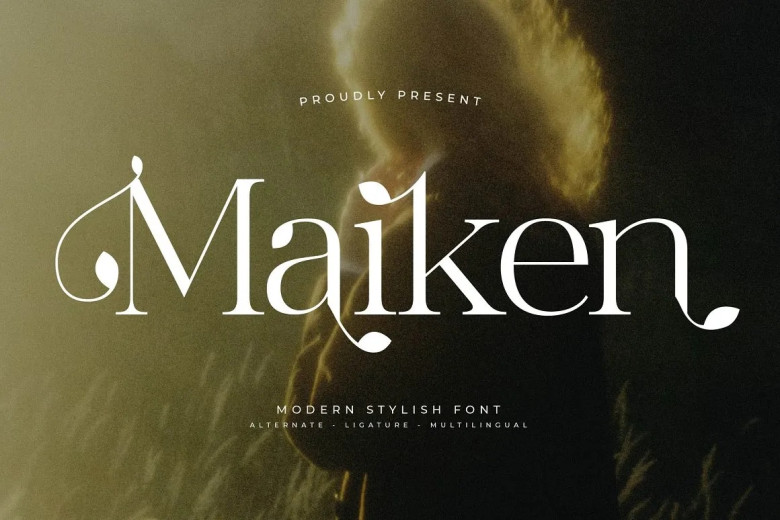
Maiken is an elegant and stunning serif typeface ideal for any high-end project requiring luxurious serif typefaces, such as logos, branding designs, packaging for products (mugs and posters), quotes shopping bags, t-shirts book covers, name cards greeting cards invitation cards watermarks photographs watermarks special events watermarks or special projects with beautiful serifs such as watermarks or special events.
Maiken Serif Font